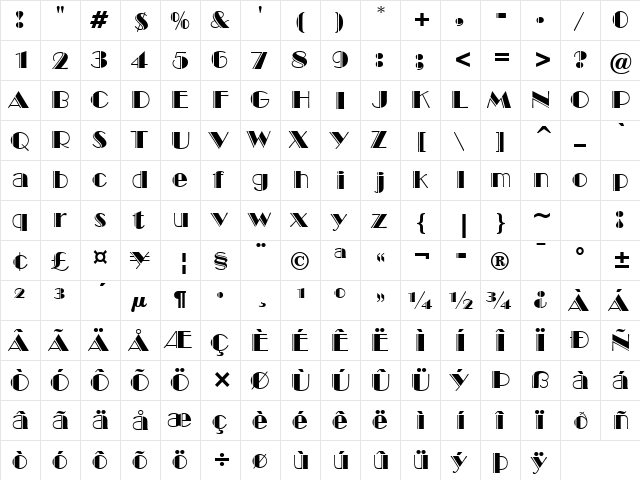
Broadway Engraved
| Style | Engraved |
Design Context for Broadway Typeface
Broadway brings ornamental detail and strong personality to headlines and identities, where visual impact matters more than quiet functionality.
Font Pairing: Pair with a clean neutral sans-serif for body copy to let Broadway's character lead without overwhelming the composition.
Pro Tip: Treat Broadway as the centrepiece of your typographic hierarchy. One strong heading set in a decorative face can carry an entire layout.